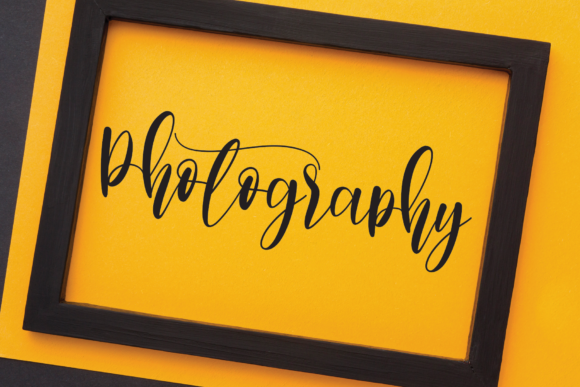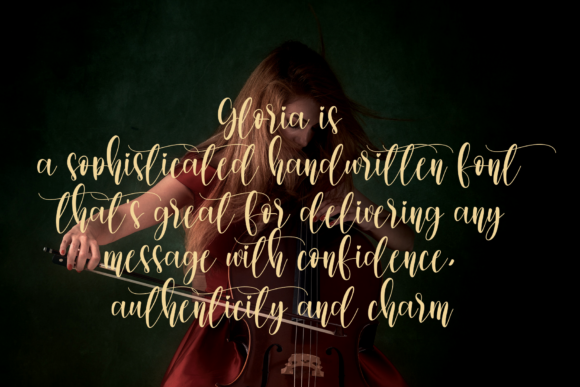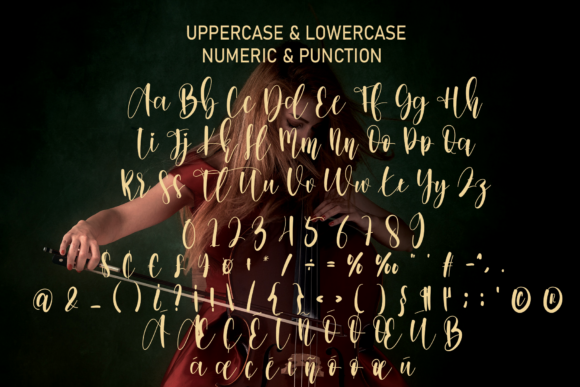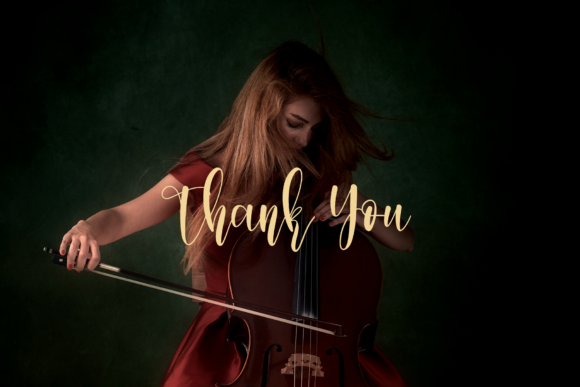
Introducing Gloria Font: The Ultimate Calligraphy Typeface for Luxury Designs
Are you a designer or crafter looking for a font that can add a touch of elegance and sophistication to your design projects? Look no further than Gloria Font, a romantic and sweet calligraphy typeface that is sure to make your designs shine. With its unique and flowing characters that dance along the baseline, Gloria Font is the perfect choice for anyone looking to add a luxury spark to their creations.
What Makes Gloria Font So Special?
Gloria Font is a beautifully crafted calligraphy typeface that is designed to evoke a sense of romance and whimsy. Its characters are carefully crafted to flow along the baseline, creating a sense of movement and fluidity that is sure to capture the eye. Whether you’re designing a wedding invitation, a branding campaign, or a packaging label, Gloria Font is the perfect choice for adding a touch of luxury and sophistication.
One of the best things about Gloria Font is that it is PUA (Private Use Area) encoded, which means that you can access all of the amazing glyphs and ligatures with ease. PUA encoding allows designers to access a wide range of special characters and glyphs that are not available in standard fonts, making it easy to add unique and creative touches to your designs. With Gloria Font, you can easily access swashes, ligatures, and other special characters to take your designs to the next level.
Gloria Font is perfect for designers and crafters who are looking for a high-quality calligraphy typeface to add to their design arsenal. Whether you’re a professional designer or a hobbyist crafter, Gloria Font is easy to use and can be incorporated into a wide range of design projects. From digital designs to print projects, Gloria Font is the perfect choice for anyone looking to add a touch of elegance and sophistication.
Use Gloria Font for a Variety of Design Projects
Gloria Font is versatile and can be used for a wide range of design projects, including:
- Branding campaigns and logos
- Packaging labels and design
- Digital designs, such as social media graphics and blog headers
- Print projects, such as brochures and flyers
Why Choose Gloria Font?
There are many reasons why designers and crafters should choose Gloria Font for their design projects. Here are just a few:
- Unique and elegant calligraphy style
- Versatile and can be used for a wide range of design projects
- Easy to use and incorporate into designs
- High-quality and professional design
In conclusion, Gloria Font is a beautiful and elegant calligraphy typeface that is perfect for designers and crafters who are looking to add a touch of luxury and sophistication to their design projects. With its unique and flowing characters, PUA encoding, and versatility, Gloria Font is the perfect choice for anyone looking to take their designs to the next level. So why wait? Download Gloria Font today and start creating stunning designs that will leave a lasting impression!